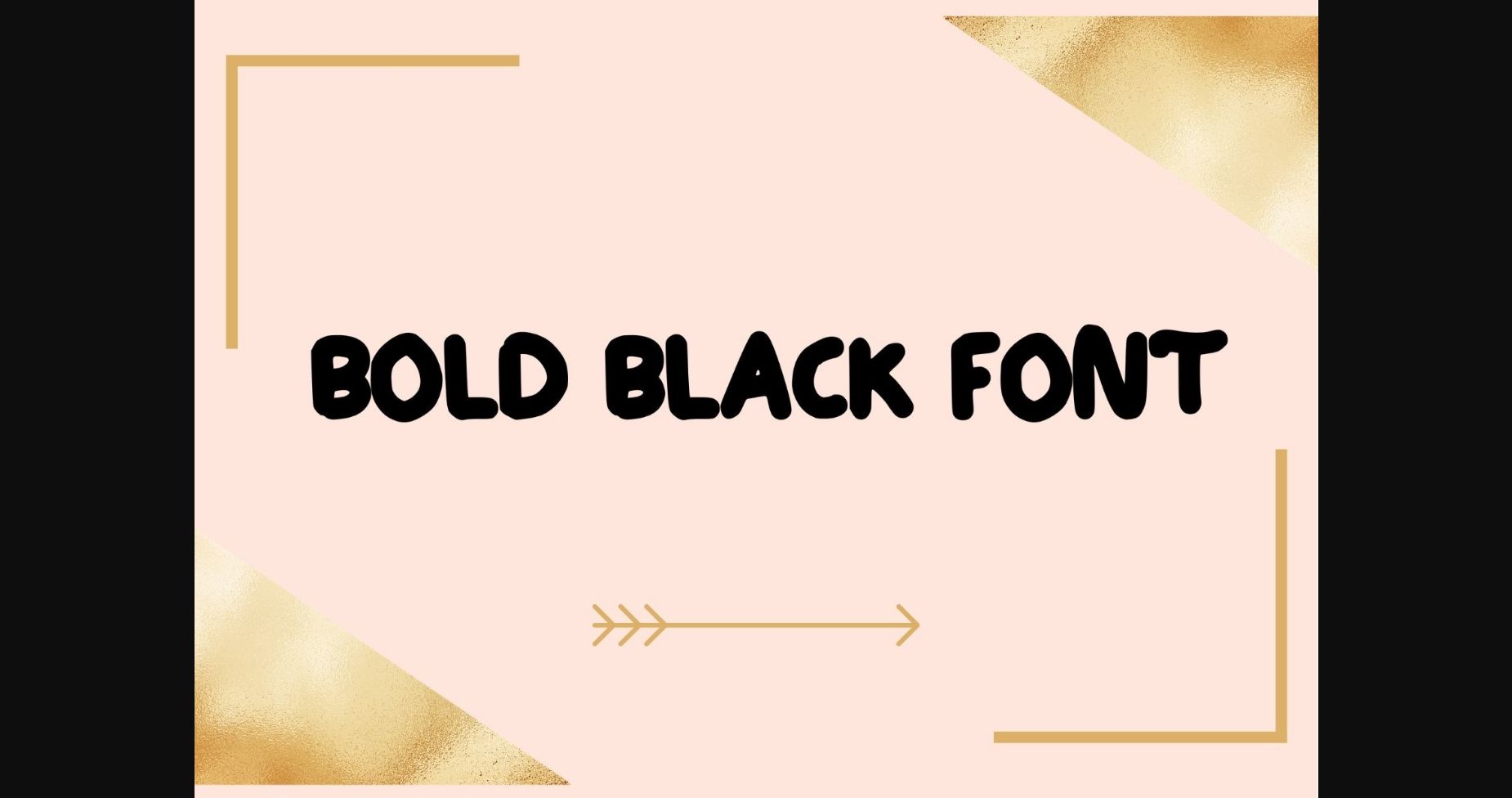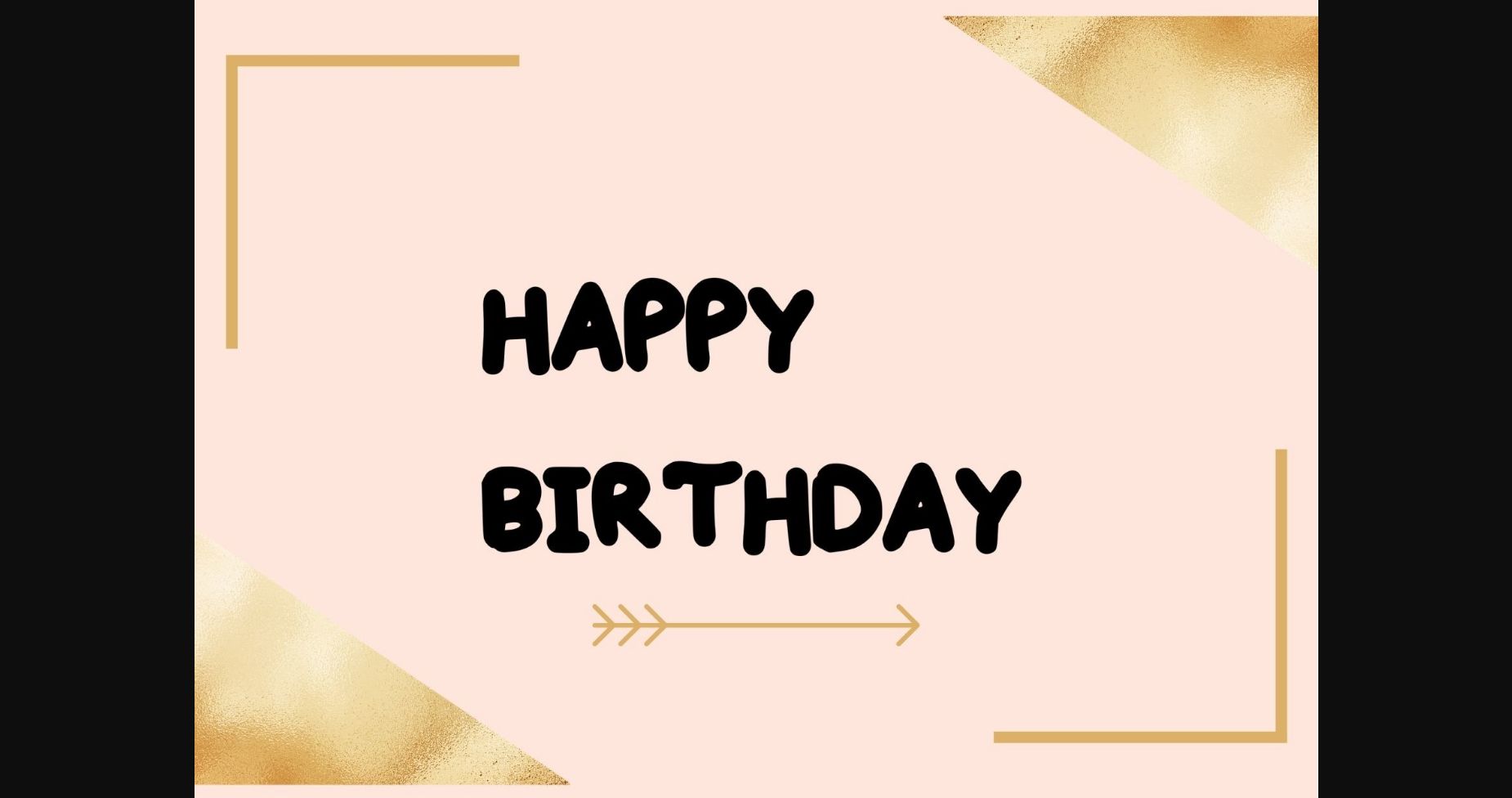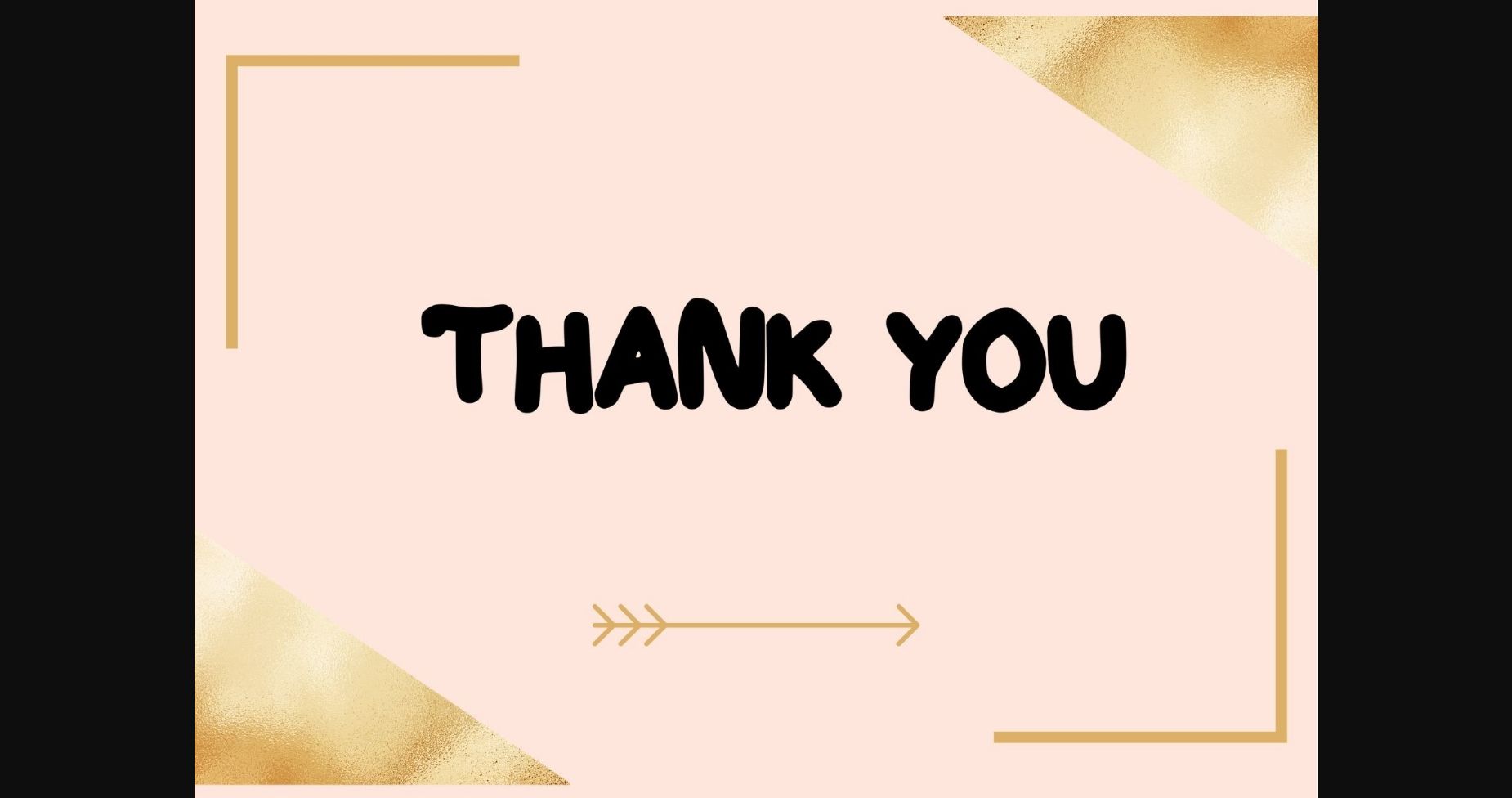
About Bold Black Font
Bold Black is a cute and friendly handwritten font. No matter the topic, this font will be an incredible asset to your fonts’ library, as it has the potential to elevate any creation.